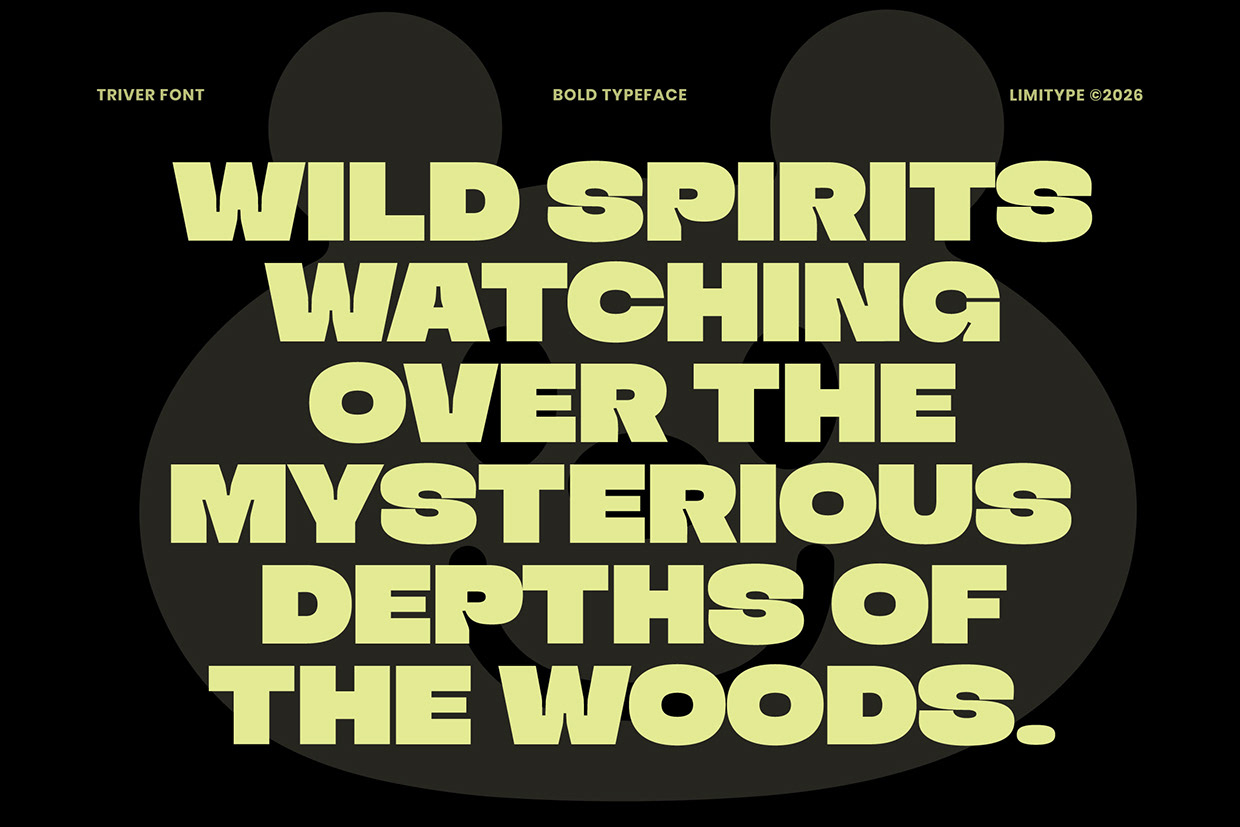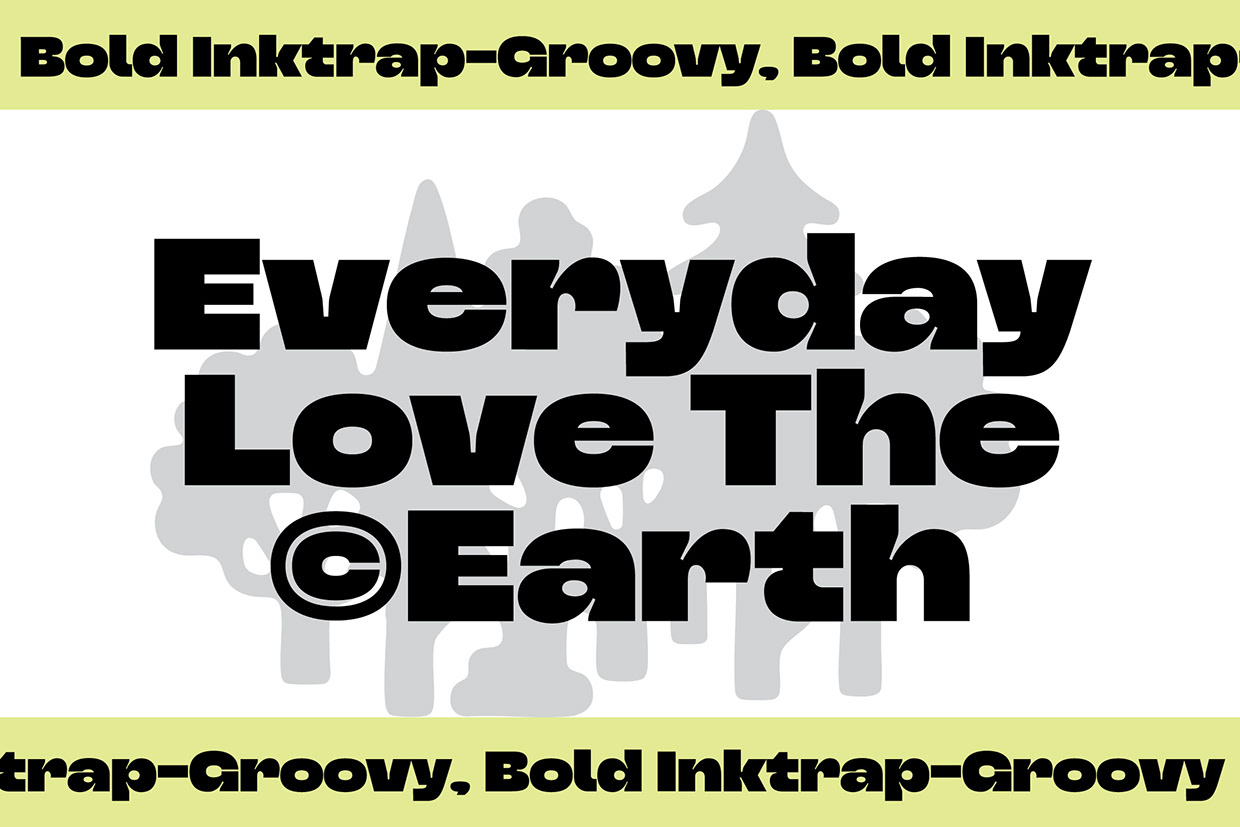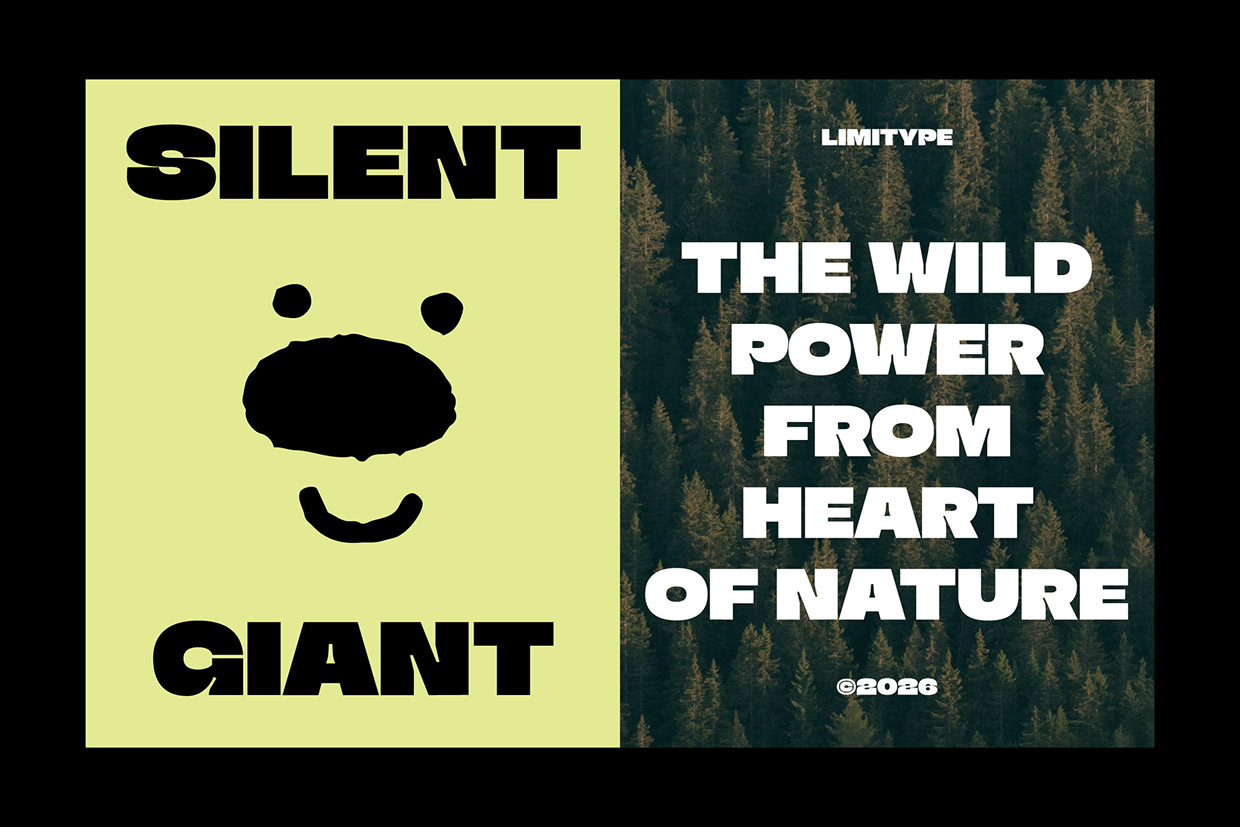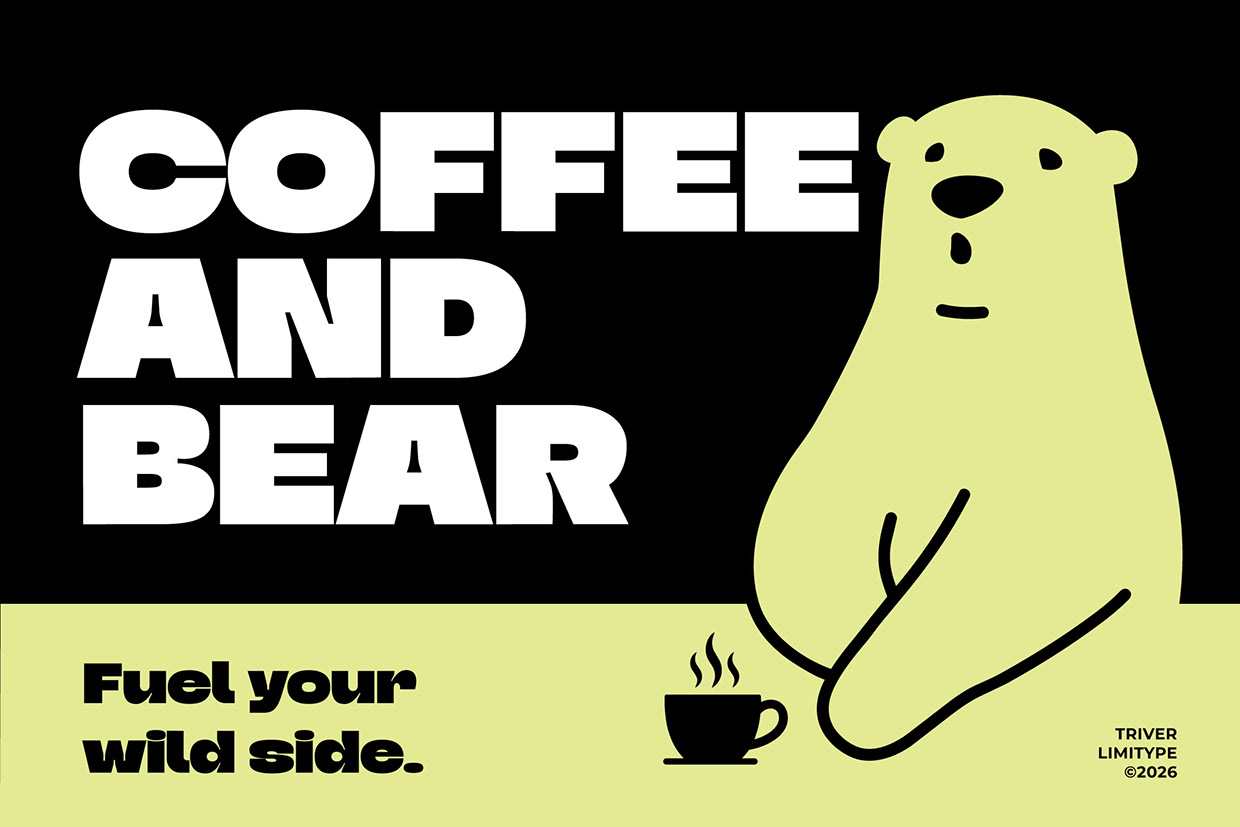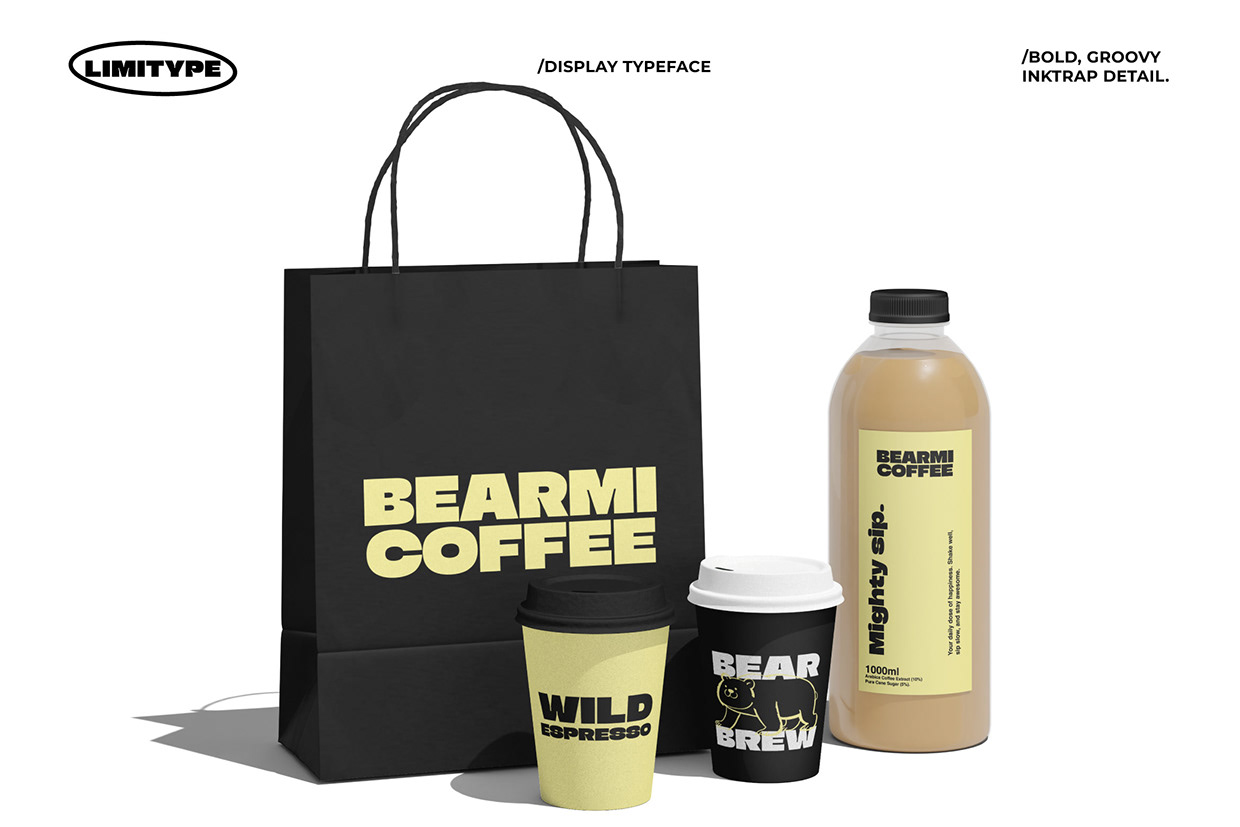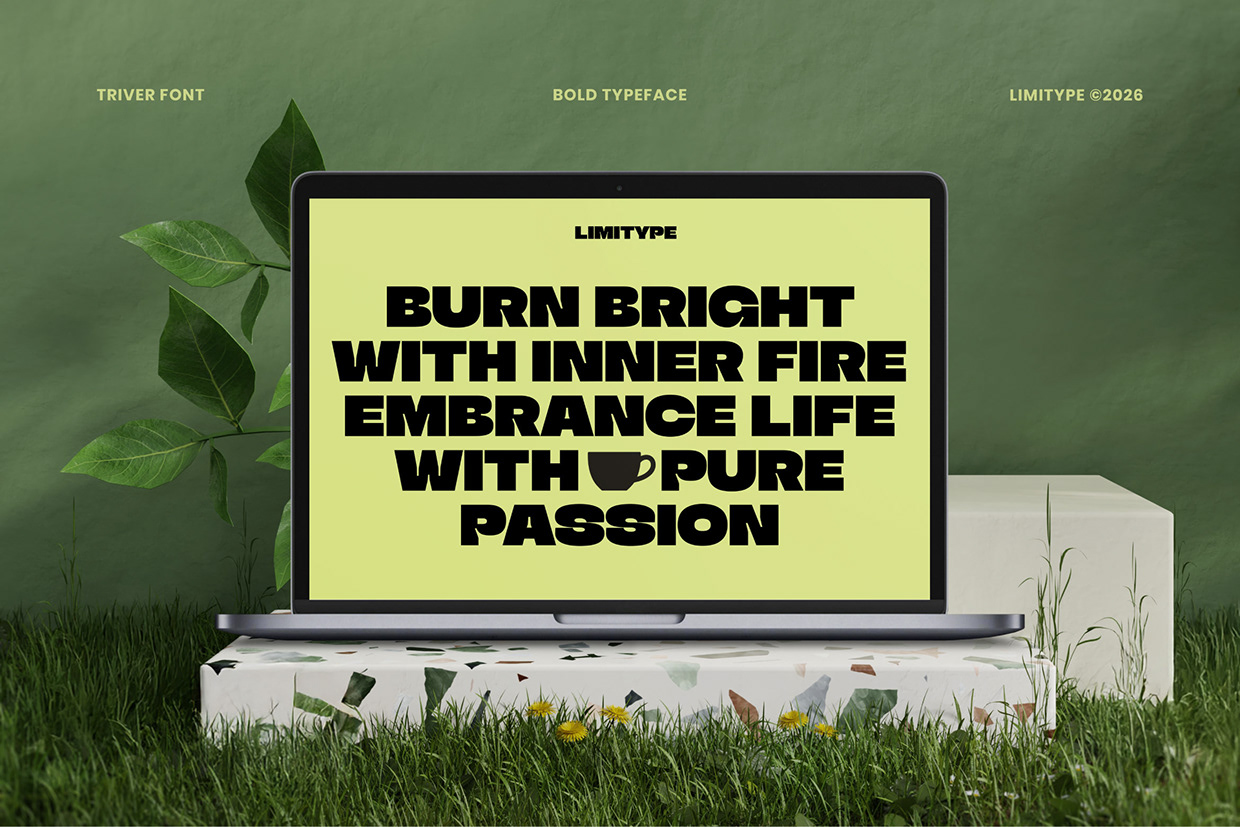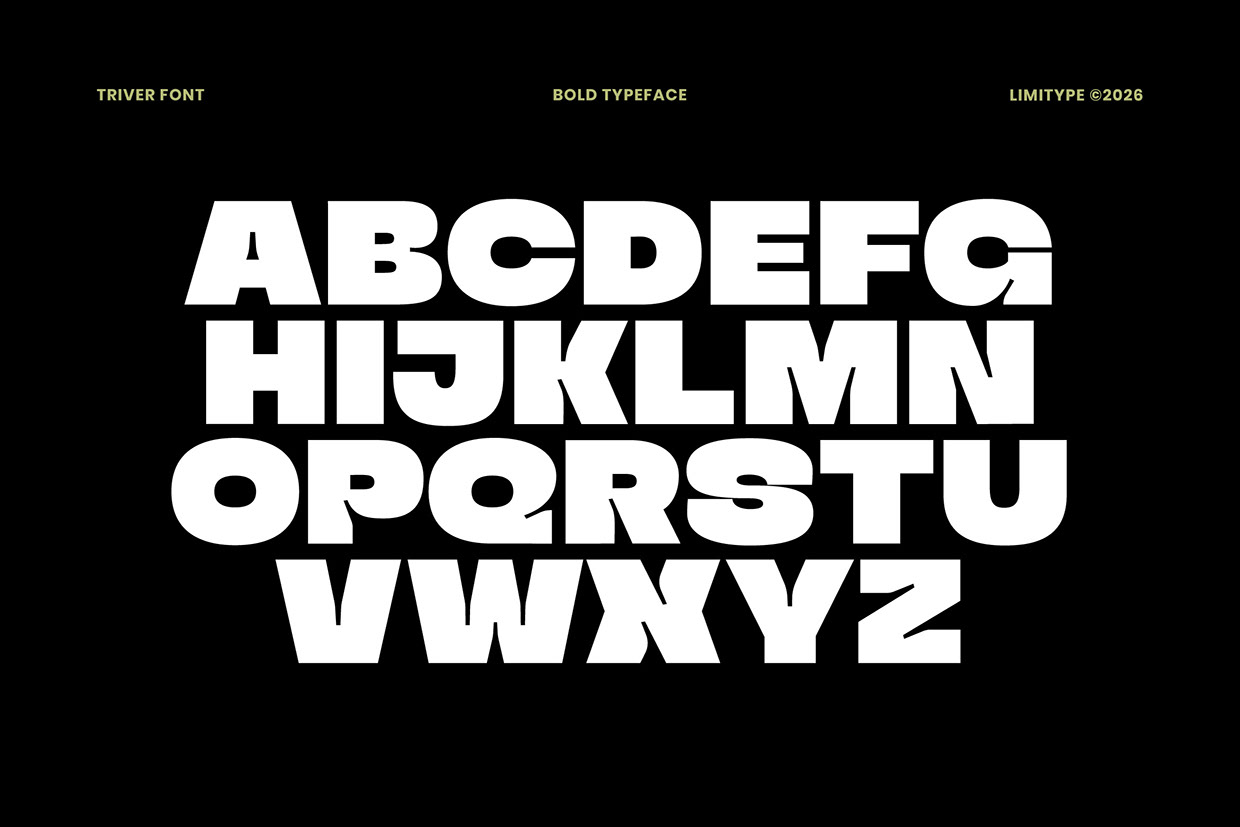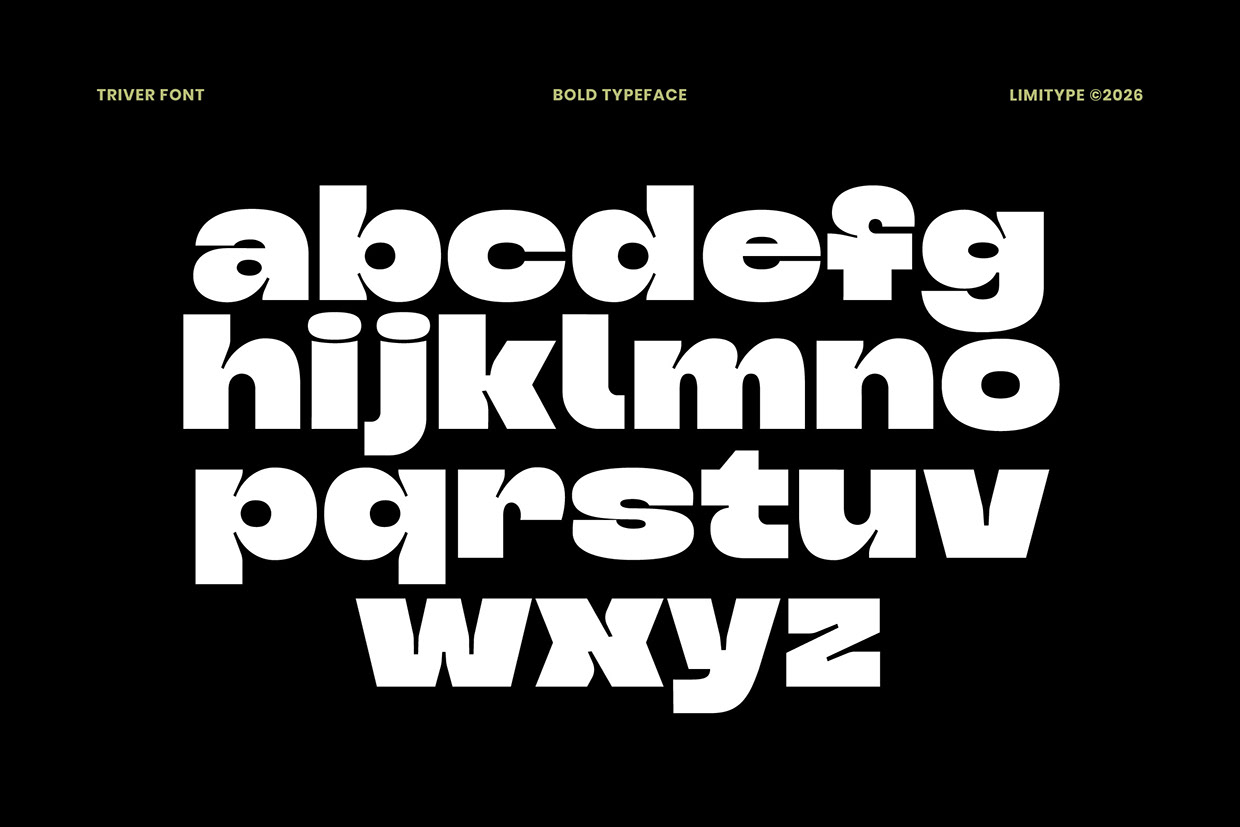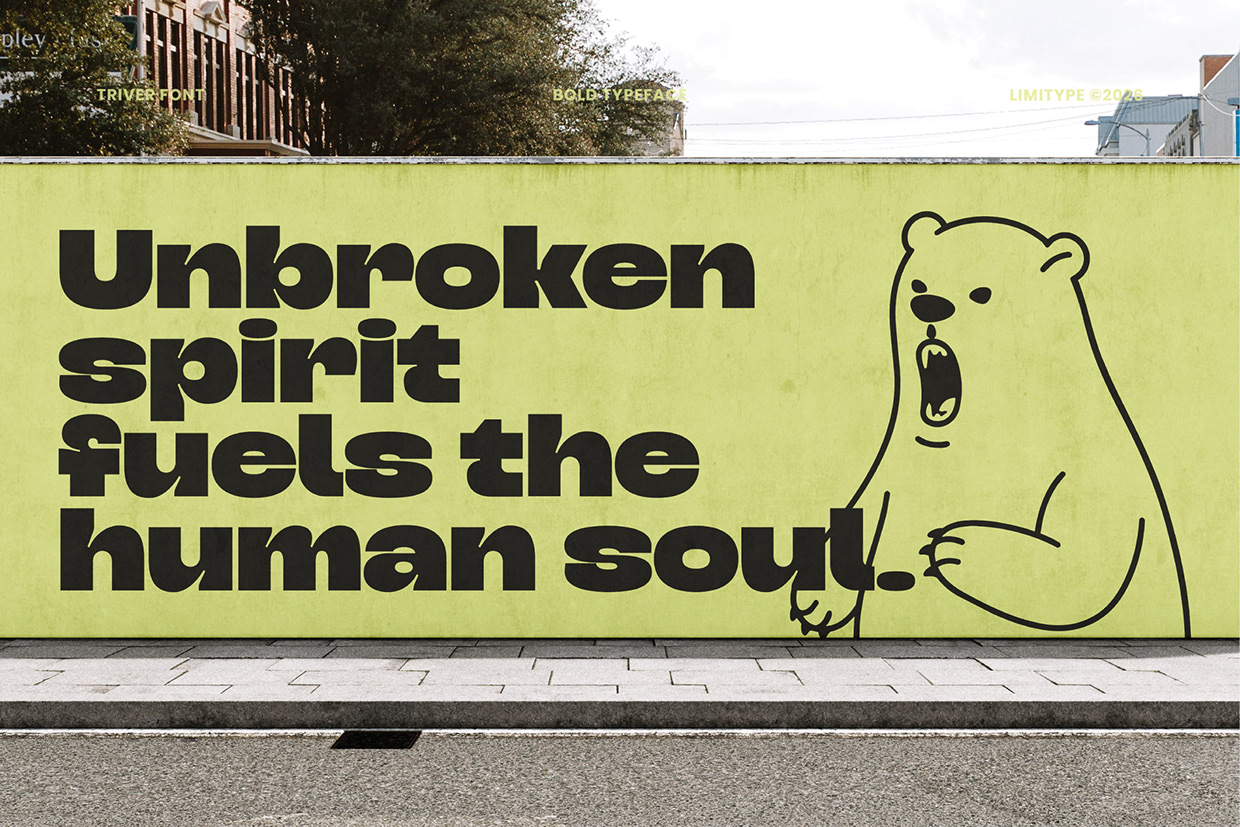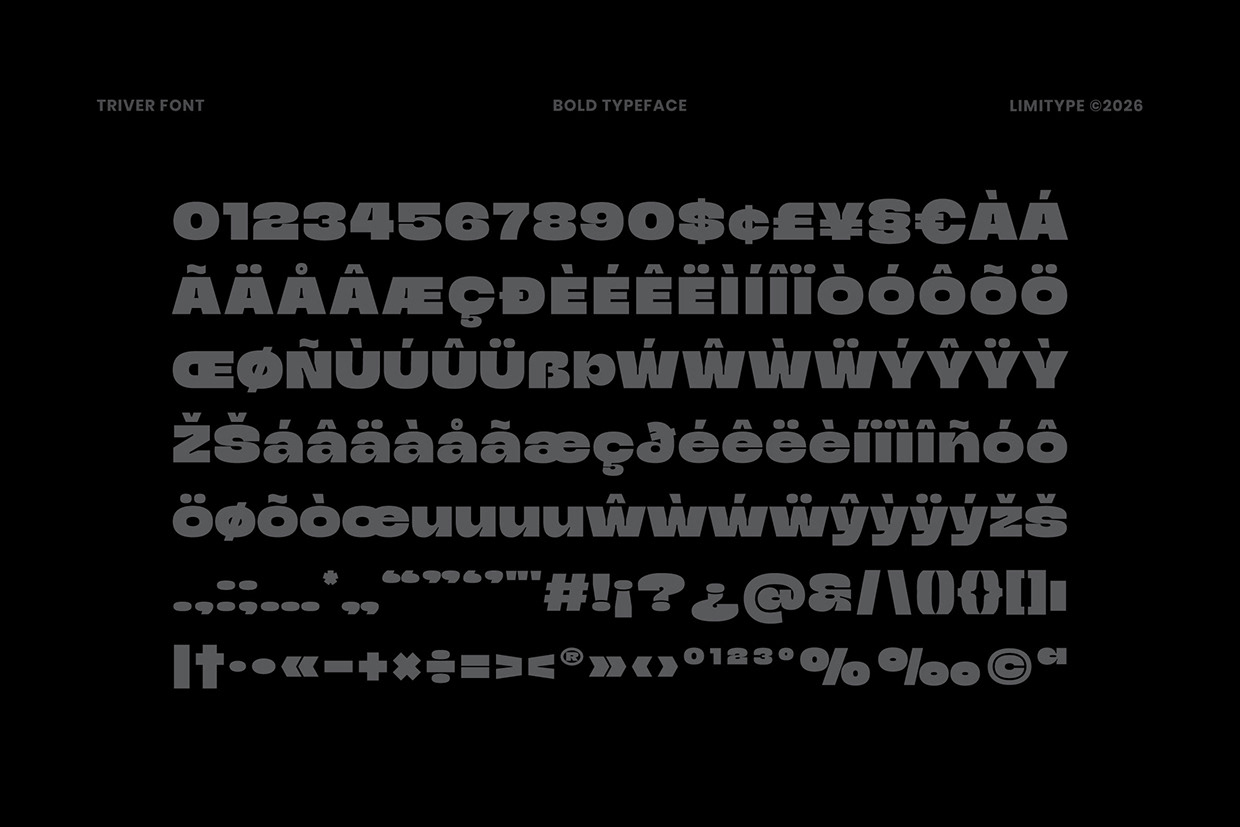
Triver - Bold Inktrap Font
Triver is a bold inktrap display font featuring thick, strong, and rounded letterforms with distinctive cut in details. Its bold shapes, playful curves, and groovy proportions create a fun retro personality with a strong visual impact. Perfect for bold headlines, posters, logos, branding, packaging, editorial designs, and eye catching visual identities.